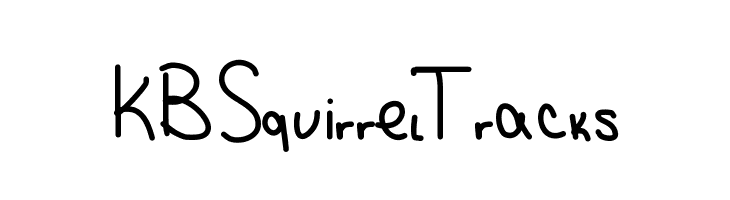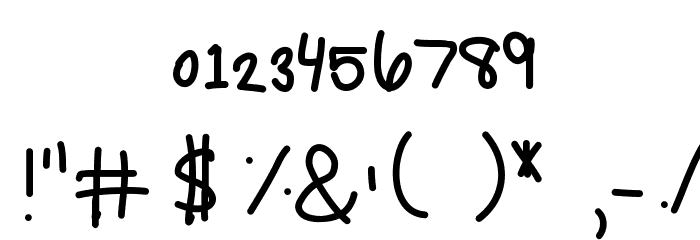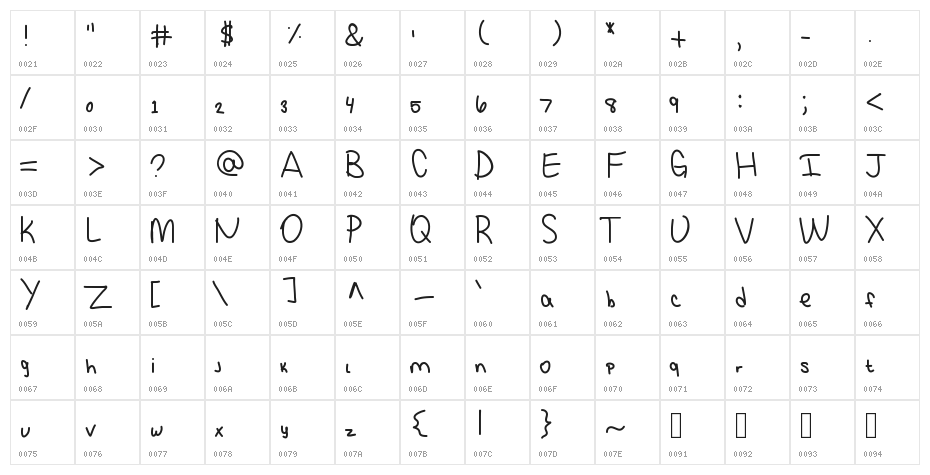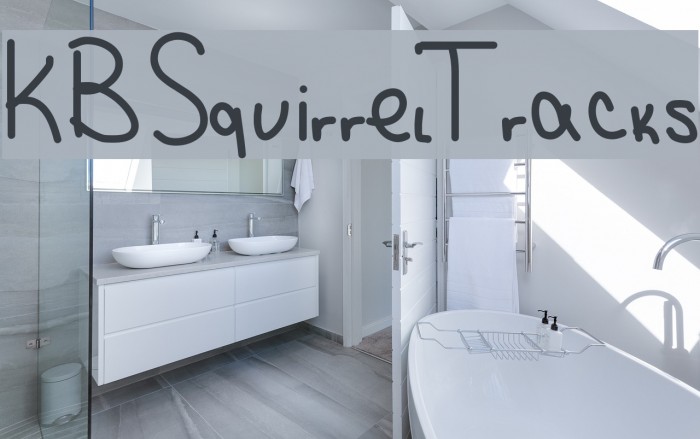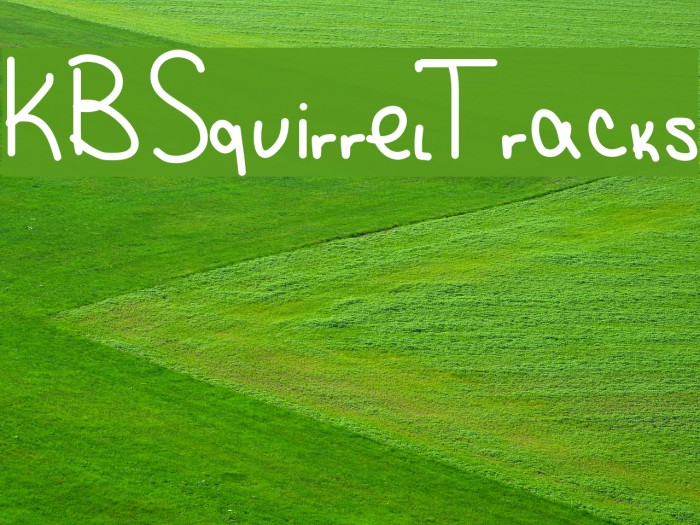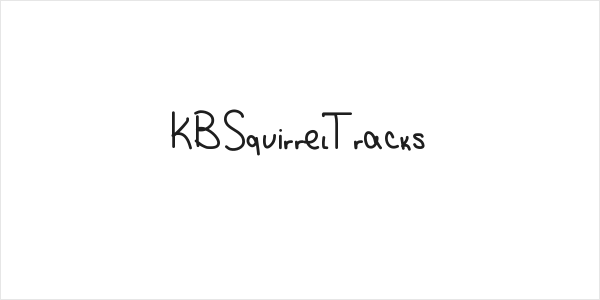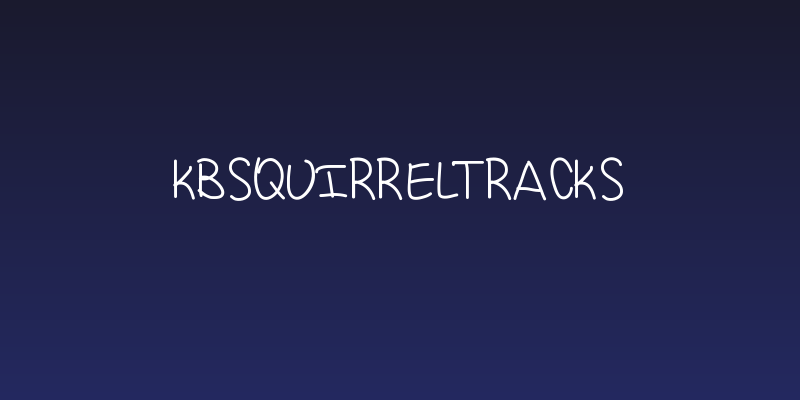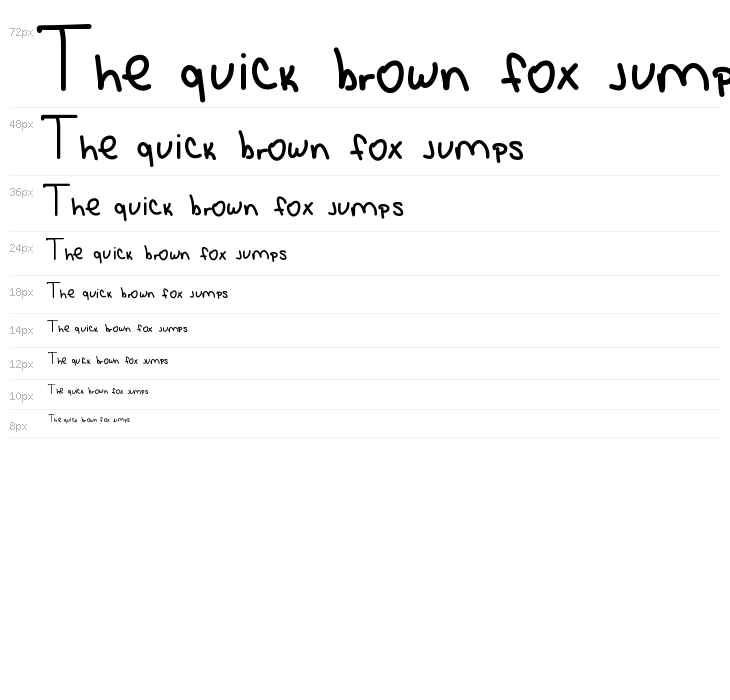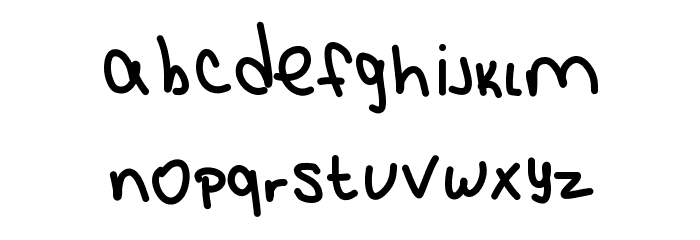
KBSquirrelTracks Font
KBSquirrelTracks Description
This playful and whimsical font features a handwritten style with a casual and informal appearance. The characters are slightly irregular, giving it a charming and approachable feel. The uppercase letters are bold and prominent, while the lowercase letters maintain a consistent flow. Numbers and special characters are designed to match the overall style, ensuring a cohesive look. The font's organic and friendly nature makes it ideal for creative projects that require a personal touch.
| Use Case | Logos, Headlines, Informal text |
| Proposed Projects | Ideal for children's books, greeting cards, playful branding, and informal invitations. |